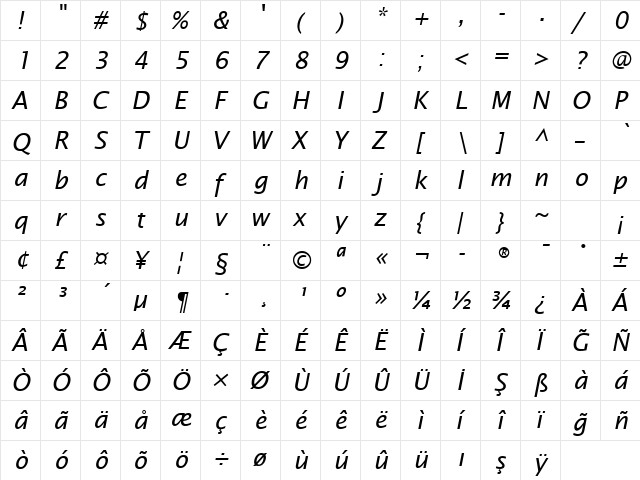
TR Lucida Sans Italic
Design Context for TR Lucida Sans Typeface
TR Lucida Sans takes a measured approach to typography — its balanced proportions and neutral character make it a reliable workhorse for both digital and print work. Its italic angle brings a sense of urgency and motion to the letterforms.
Pro Tip: Try TR Lucida Sans for annotation and caption copy alongside an upright companion — the contrast in angle creates a dynamic but ordered typographic system.